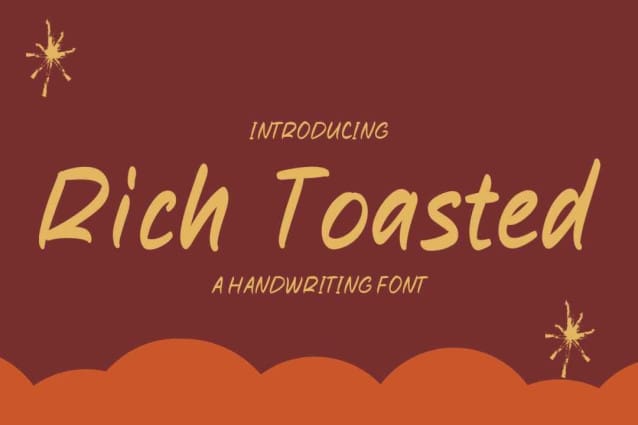
Rich Toasted Font
Rich Toasted Font, is a casual handwritten font perfect for logo design, social media posts, movie and book titles, and many more! Make stunning work with Triple Shots font!